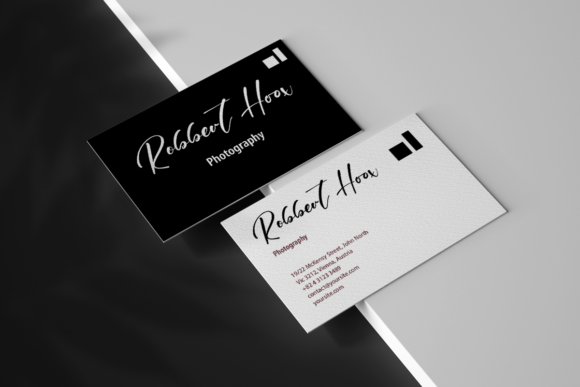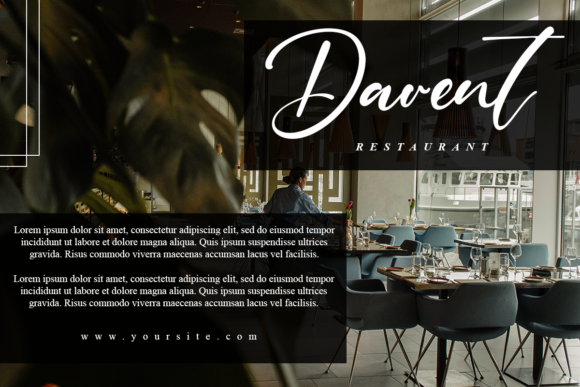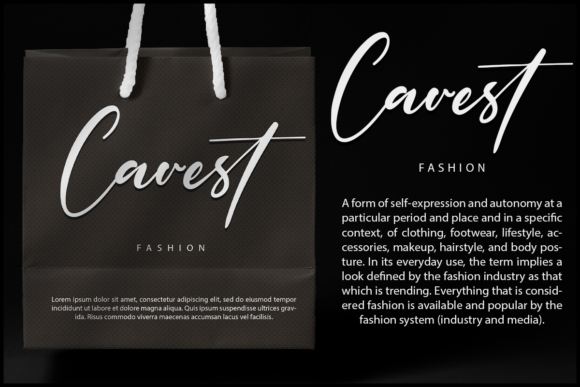
The Diane Evans Font: A Modern Handwritten Marvel for Creative Designs
I still remember the frustration of working on a branding project, only to hit a roadblock when searching for the perfect font. My client wanted something modern, yet elegant; something that would make their logo stand out. That’s when I stumbled upon the Diane Evans font, and it was love at first sight! 💕
This beautiful, modern handwritten typeface has been a game-changer for my designs, and I’m excited to share its awesomeness with you. Whether you’re a designer, crafter, or creative hobbyist, Diane Evans is perfect for logotypes, branding design, logo design, digital lettering arts, T-shirt/apparel, posters, magazines, signs, advertising design, and many more.
An Honest Review: What I Love and a Few Quirks
- 💫 **Unique and elegant**: Diane Evans boasts a distinctive, hand-crafted feel that’s perfect for making a statement.
- ✅ **Versatile**: This font is incredibly versatile, suitable for a wide range of design projects, from logos to posters.
- 🎨 **Attention-grabbing**: Its modern, artistic vibe is sure to capture everyone’s attention!
- 💻 **Easy to read**: Despite its artistic nature, Diane Evans remains surprisingly legible, making it perfect for body text and headlines.
- ⚠️ **Limited use in very small sizes**: While Diane Evans is generally legible, it may not be the best choice for very small font sizes or body text.
- ⚠️ **Some letters may require manual kerning**: As with many script fonts, you might need to adjust the kerning for certain letter combinations to achieve optimal results.
- Experiment with OpenType features, such as ligatures and stylistic alternates, to add more flair to your design.
While the origins of Diane Evans might be shrouded in mystery, it’s clear that the designer aimed to create a font that embodies modern elegance and artistic flair. Inspired by the beauty of handwritten typography, Diane Evans is a testament to the power of creative design.
| Author | staircasestudio20 |
Q: What makes Diane Evans unique?
A: Diane Evans boasts a distinctive, hand-crafted feel with a modern twist, making it perfect for creative designs that require elegance and attention-grabbing typography.
Q: Is Diane Evans difficult to read?
A: Despite its artistic nature, Diane Evans remains surprisingly legible, making it perfect for body text and headlines, although it may not be ideal for very small font sizes.